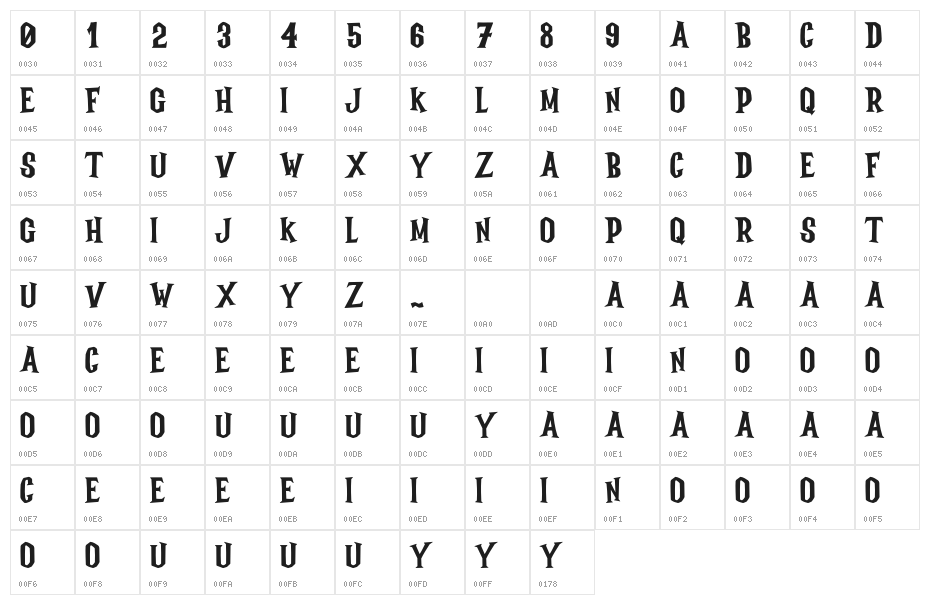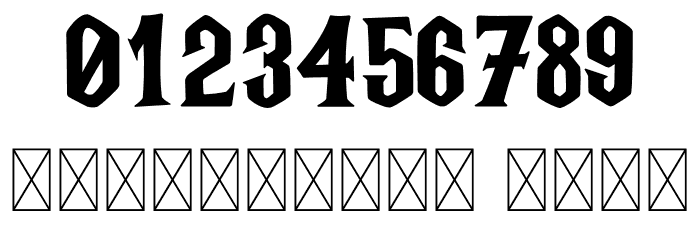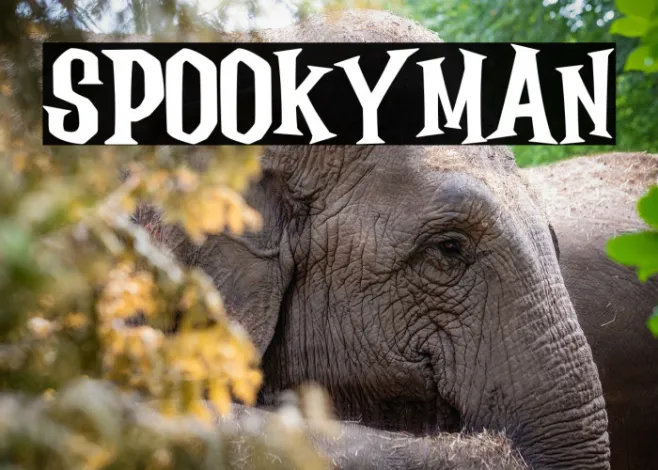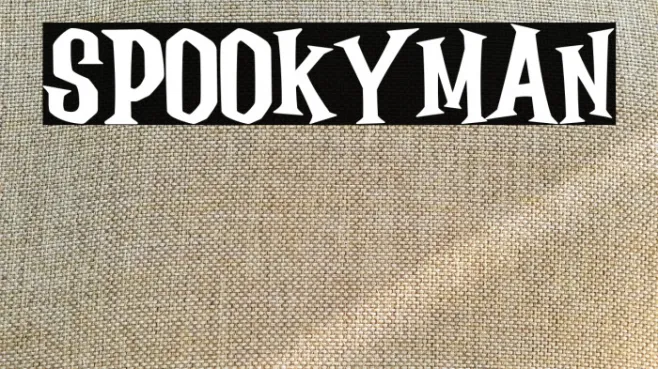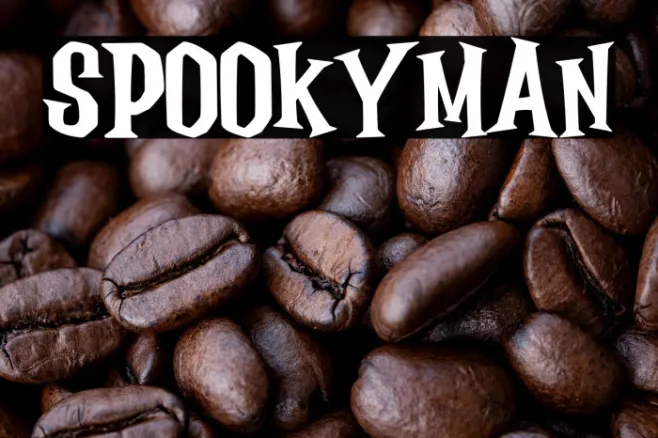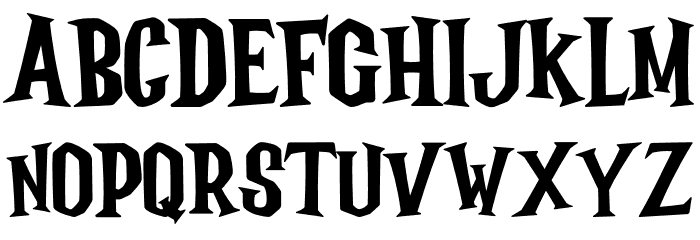
Spookyman Font
Spookyman Description
This font features a bold and dramatic style with sharp, angular edges and a slightly irregular form, giving it a spooky and eerie appearance. The characters are tall and narrow, with exaggerated serifs and a hand-drawn feel that adds to its unsettling charm. The uppercase and lowercase letters maintain a consistent style, while the numbers and special characters follow the same design principles, ensuring a cohesive look across all text. This font is perfect for creating a sense of mystery and intrigue.
| Proposed Projects | Ideal for Halloween-themed designs, horror movie posters, haunted house flyers, and spooky event invitations. |